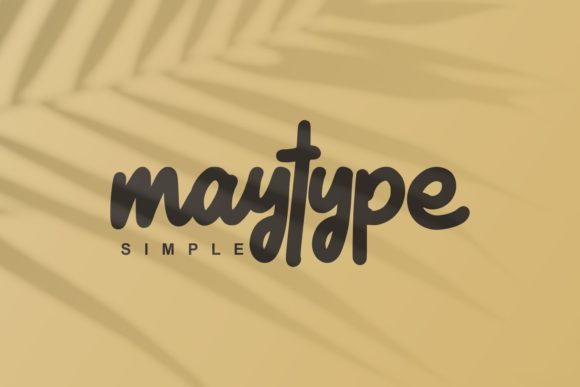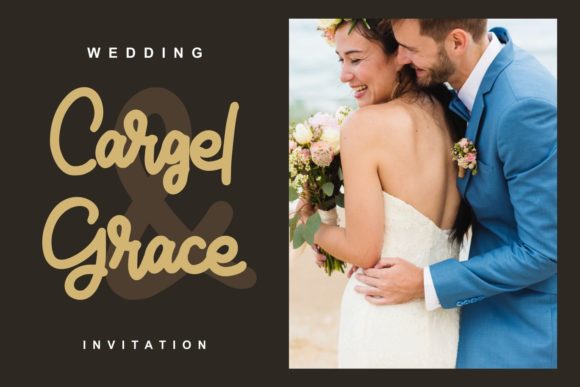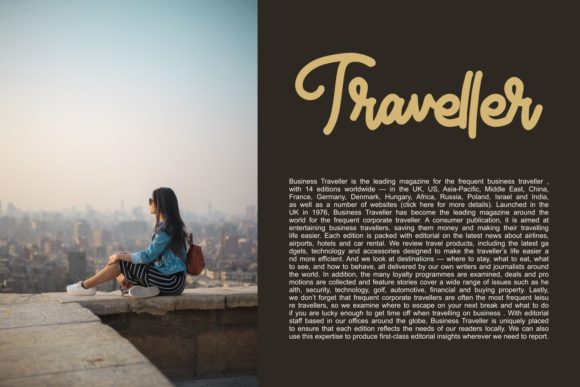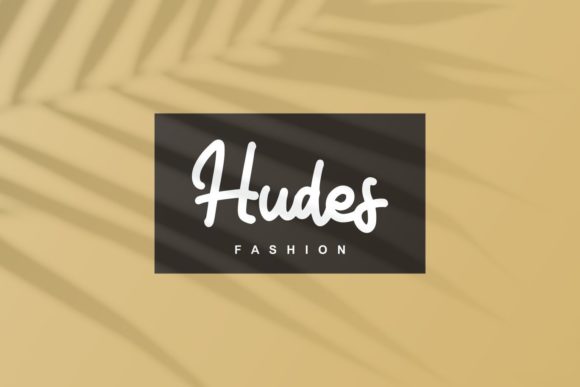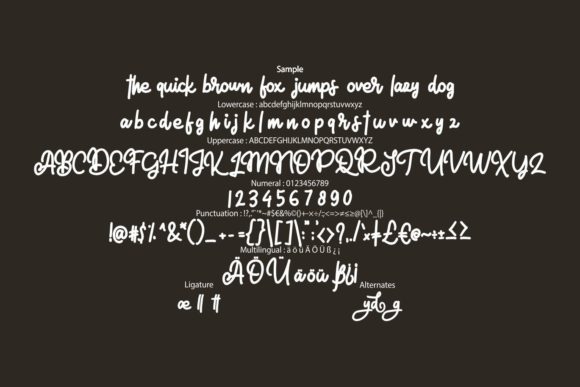
Sallyd Font
Sallyd is a lovely and timeless handwritten font. It is the best choice for creating eye catching logos, branding and quotes. Every letter has a unique and beautiful touch, which will make your design come alive!